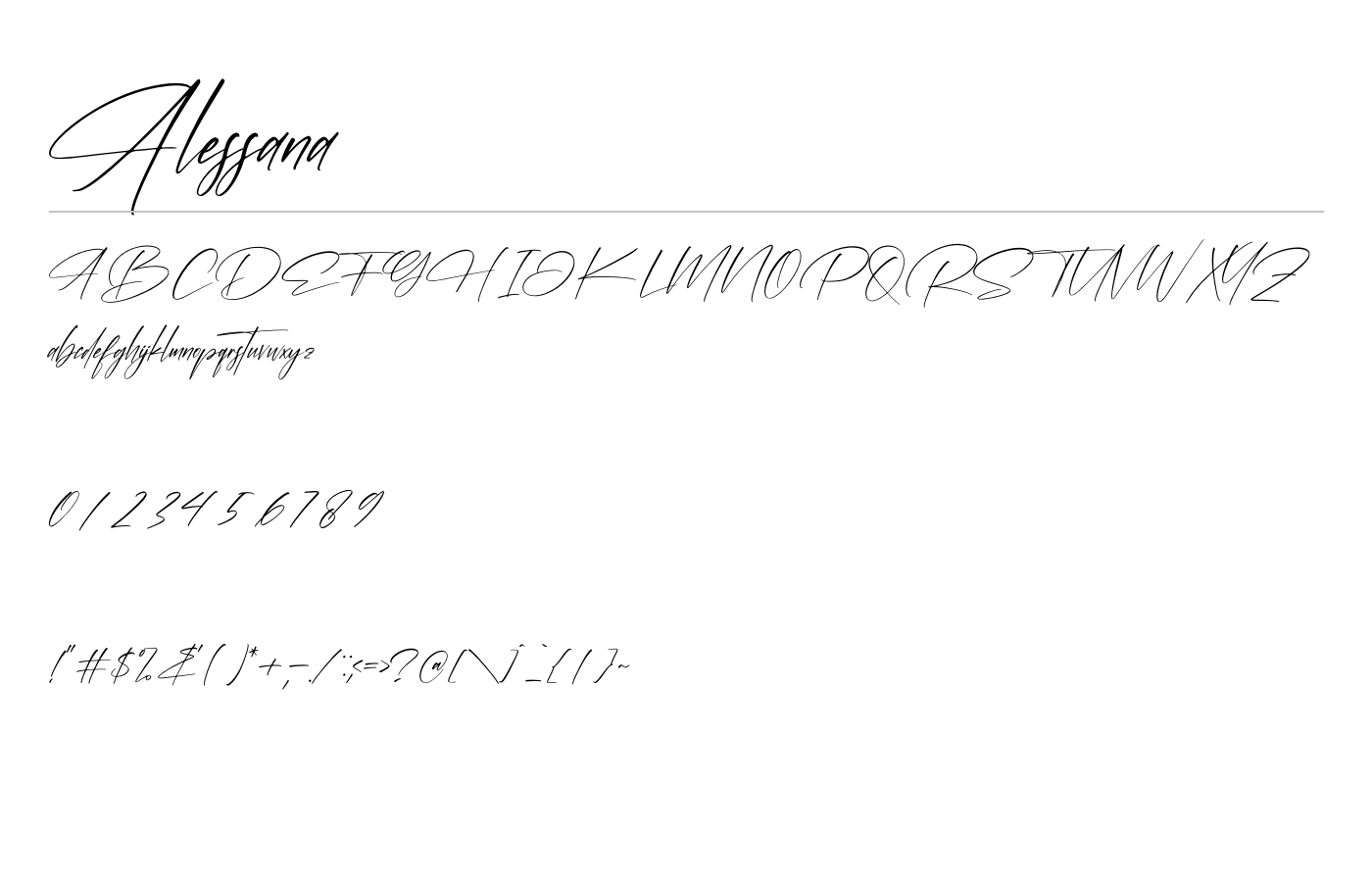
Alessana is an elegant, delicate script font with a refined, handwritten style characterized by thin, flowing strokes and a graceful, tall x-height. Its light weight and airy letterforms convey a modern, sophisticated feel, making it ideal for luxury branding, wedding invitations, and stylish editorial designs where a touch of personal elegance is desired. The font’s fine, cursive nature works best in large sizes for headlines or logos, where its intricate details can be appreciated.
Alessana Font
About Alessana Font